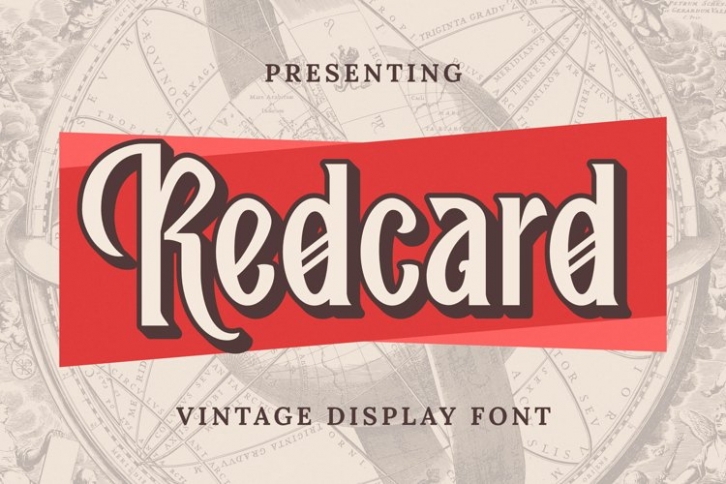
Redcard is a gorgeous font that was realeased on October 17, 2021. The font can be used in many style contexts and design environments. Perfect for invitations, magazines, websites, logos, and more! It was designed by plusstore and the file size is 20.1 MB. Thanks for checking out this font!